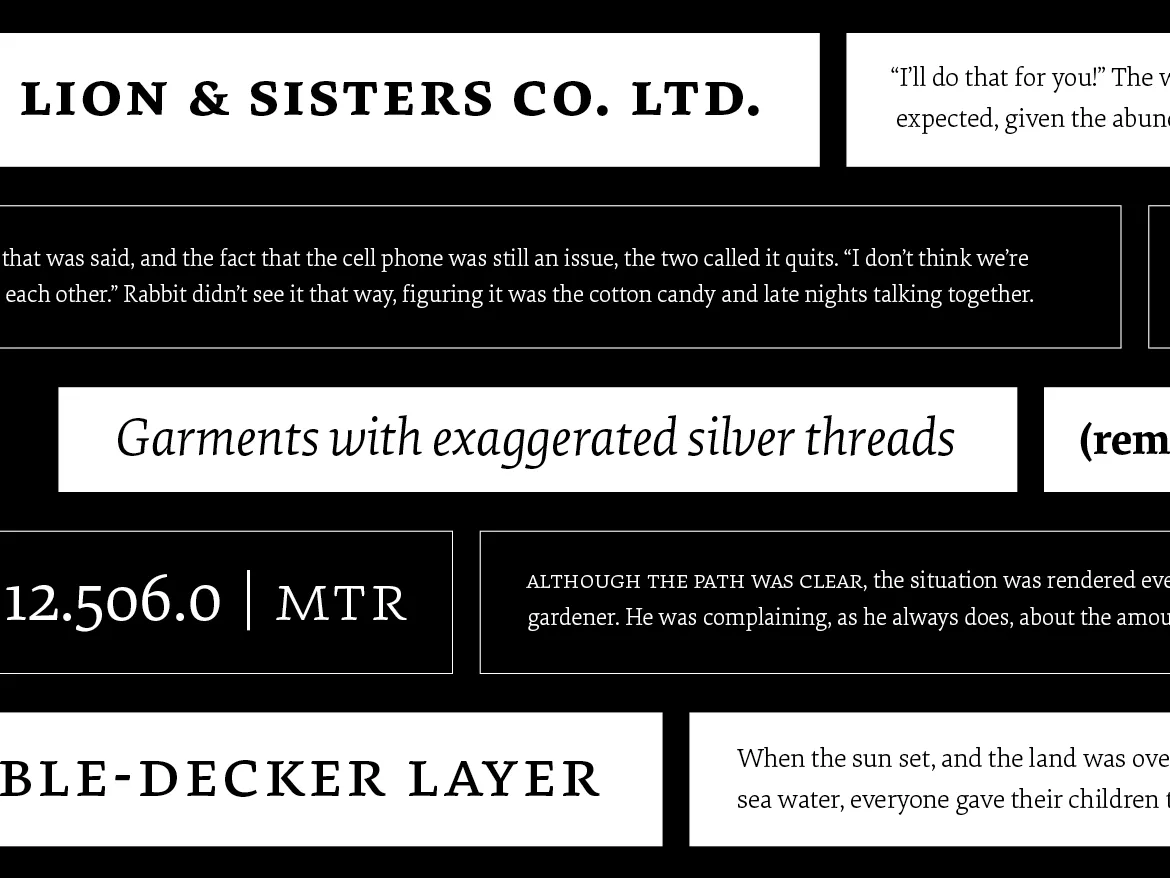
More Elena, More Control
Elena, designed by Nicole Dotin, has doubled in size with two new weights. Adding to the Regular and Bold, a Light and Medium bring a twist of variability to this modern serif typeface. The new styles form a trio of text weights – rather than follow a traditional linear weight model – and serve as lighter and heavier gradations of the Regular. These new fonts are designed to offer finer control over page color, hierarchy, and type pairings.
Originally released in 2011, Elena was made for extended reading. It has since found its way into every medium, from books to blogs, and even the popular reading app Instapaper. This release expands on that mission, reaffirming its commitment to text that’s meant to be read.